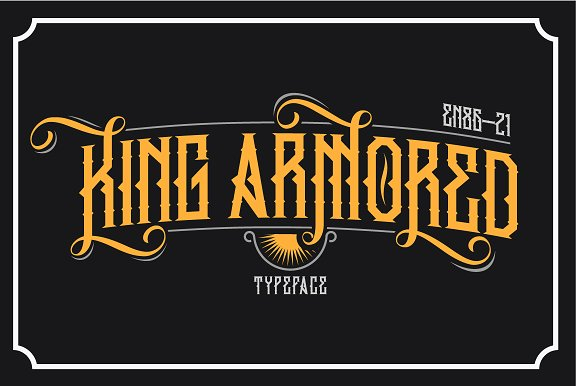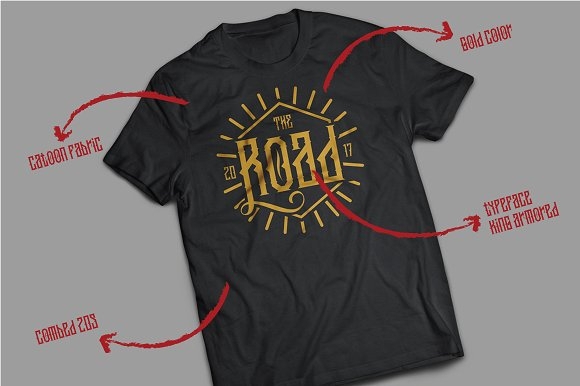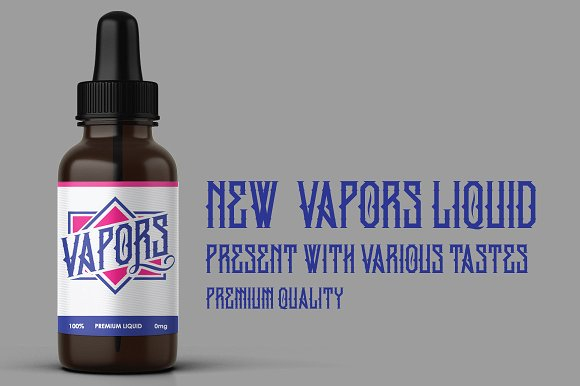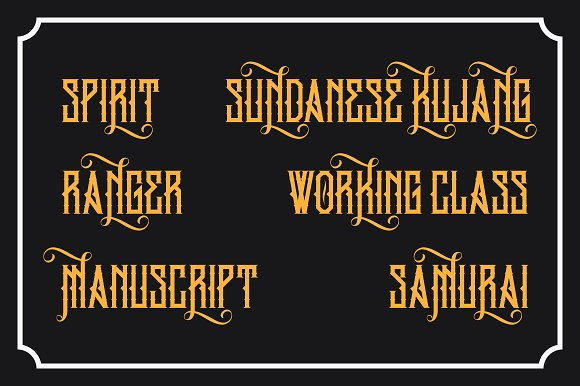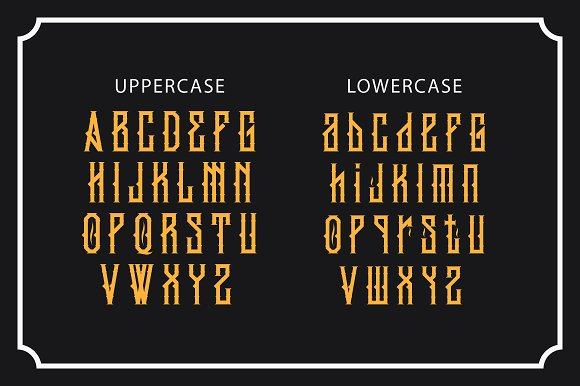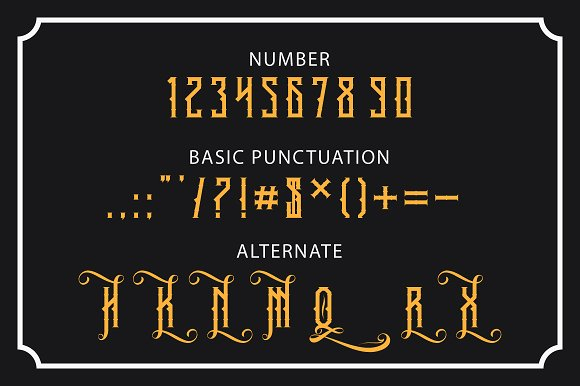
King Armored Font
About King Armored Font
The King Armored is a striking blackletter font. It has unique letters which will make any design stand out.